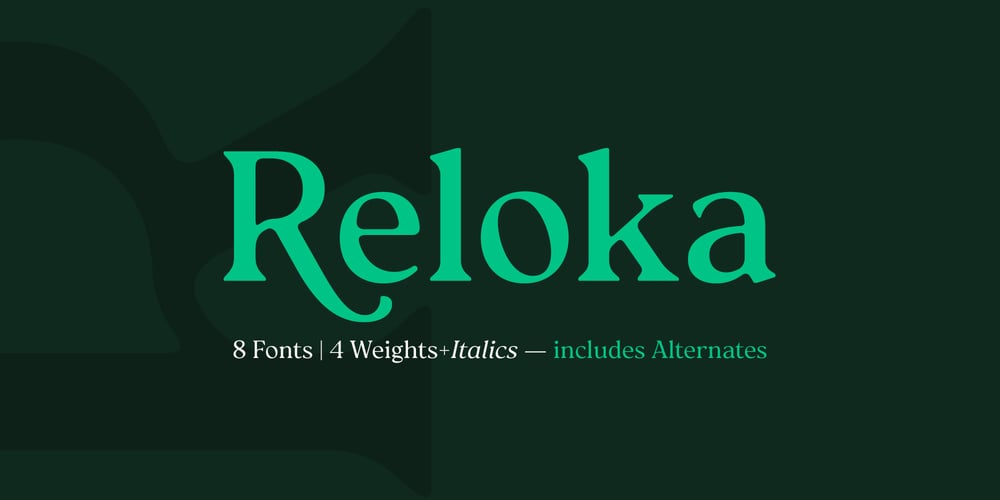
Reloka Font Family was designed by Arwan Sutanto and published by Locomotype. Reloka contains 8 styles and family package options. Reloka is a retro-style font, a serif facade type that gracefully reminds us that this style still exists with great determination, only the 70s style is about to emerge. With a lot of personality and characteristics of its own, Reloka reinterprets the nostalgia of fonts from a bygone era with a contemporary design ideal for daring projects.Reloka comes in four different weights and matching italics, making it useful for any project including headlines, paragraphs or display. It also strikes an ideal mix between vintage and modern appeal, so your creations will both reflect sophistication and warmth.